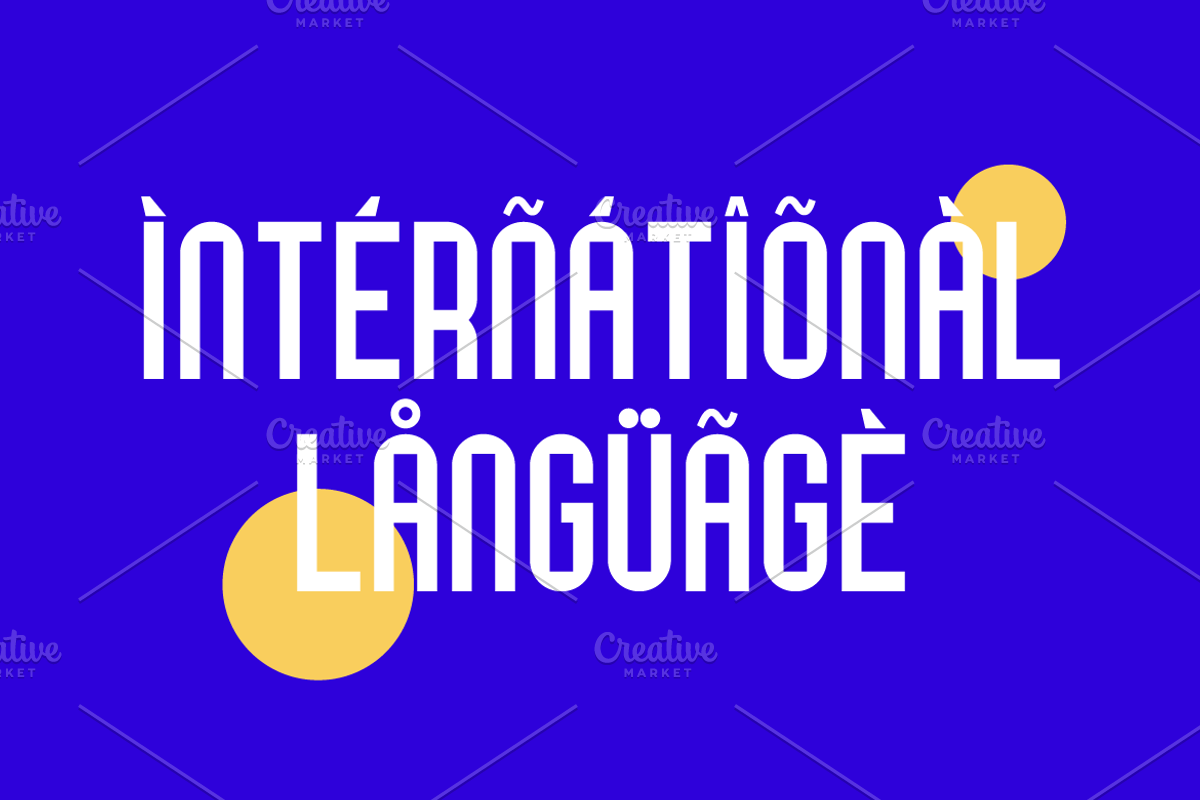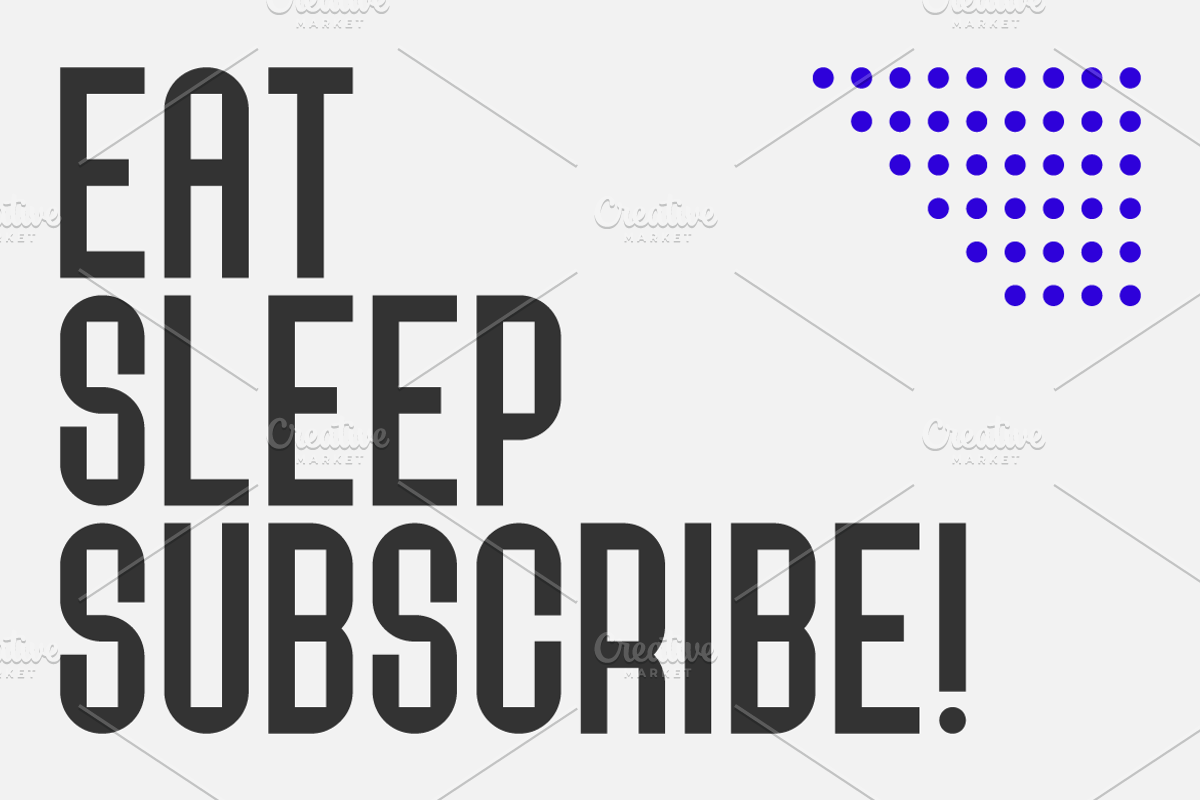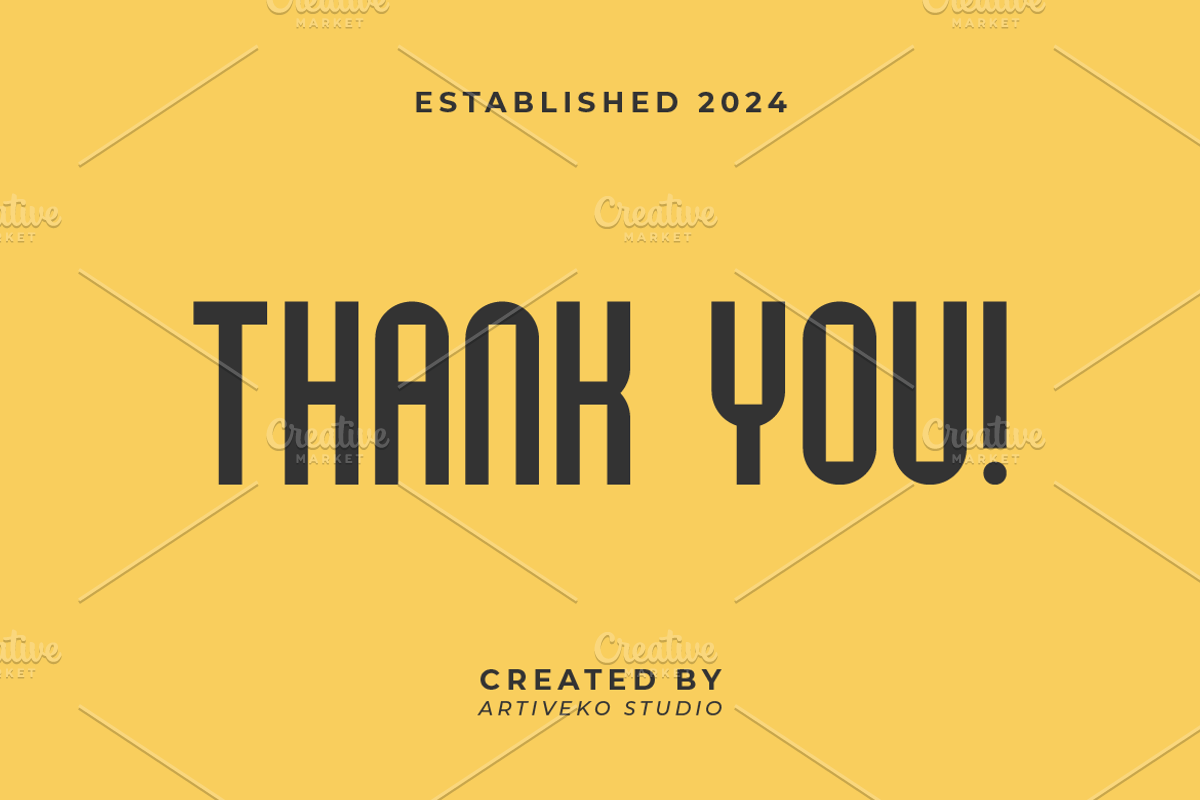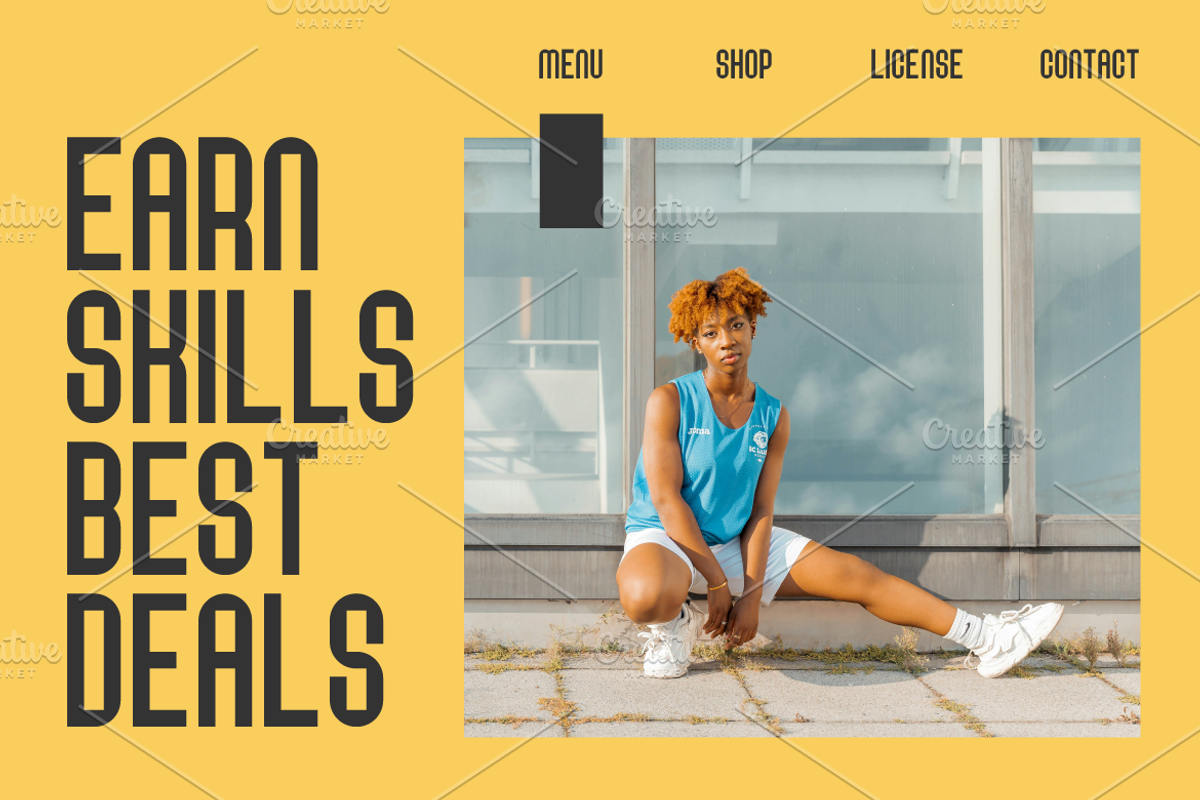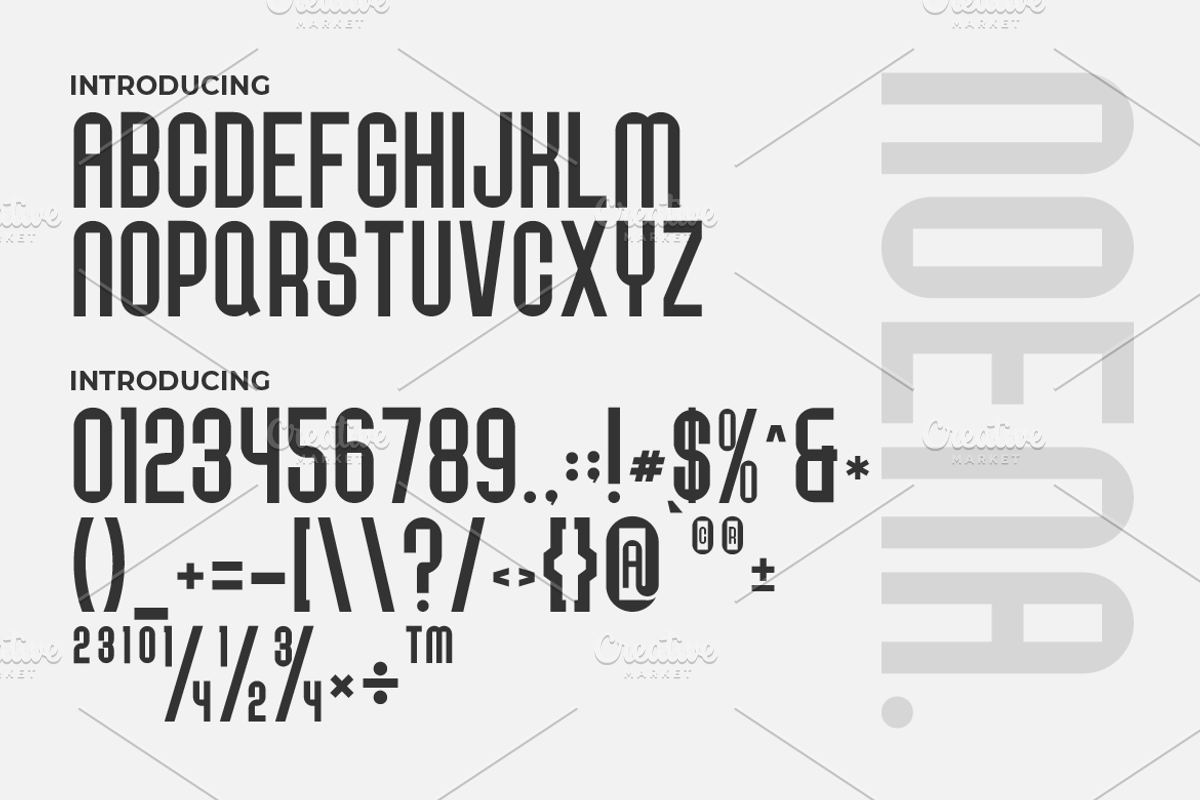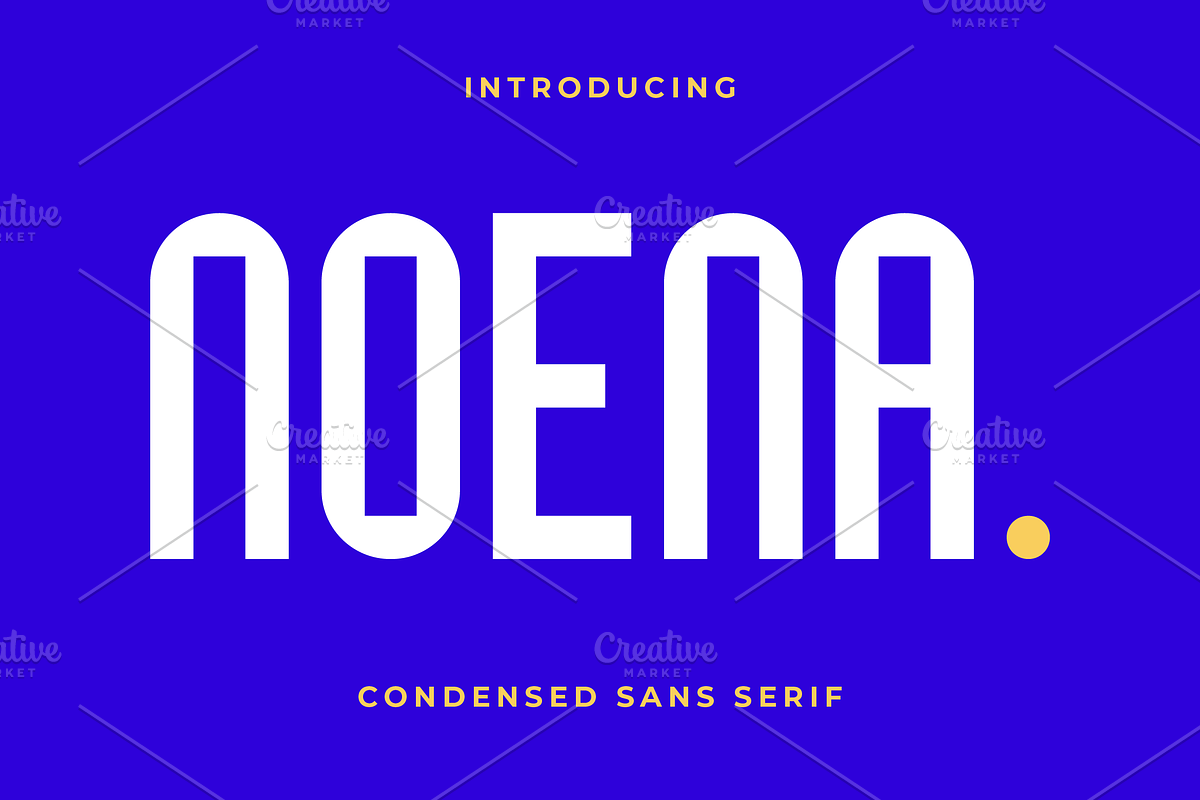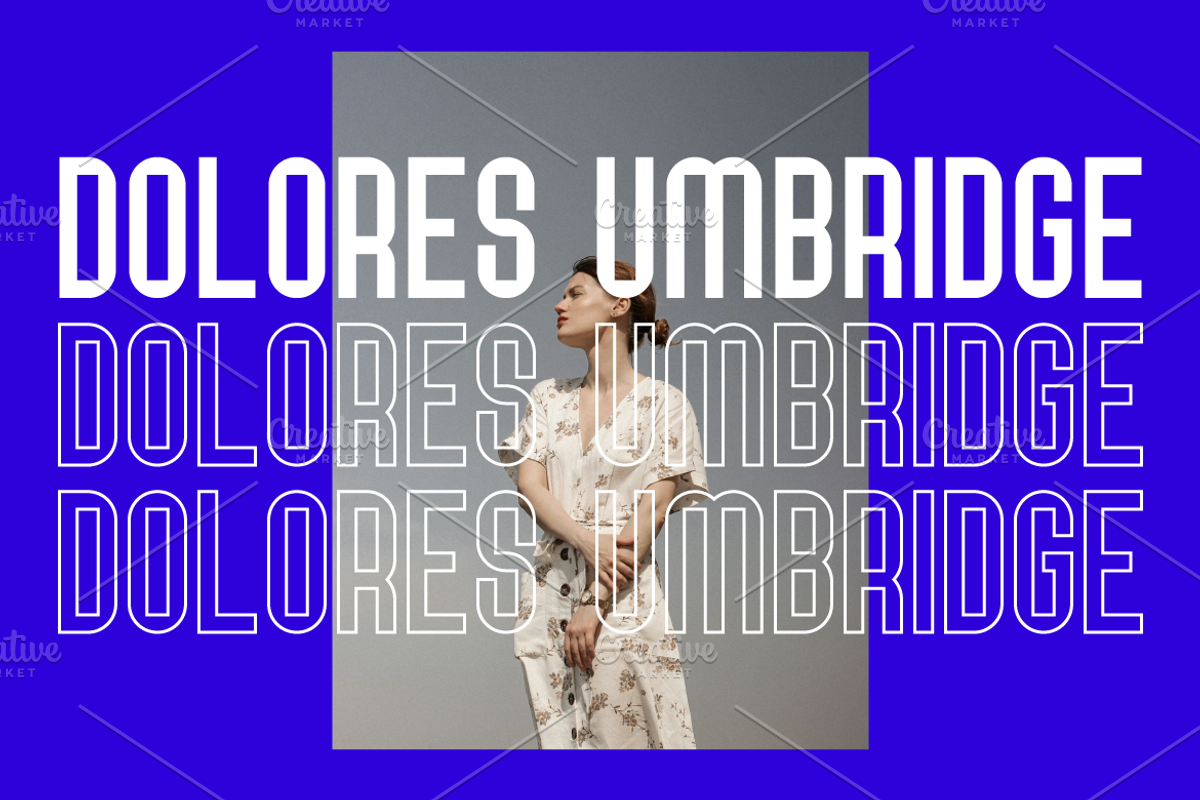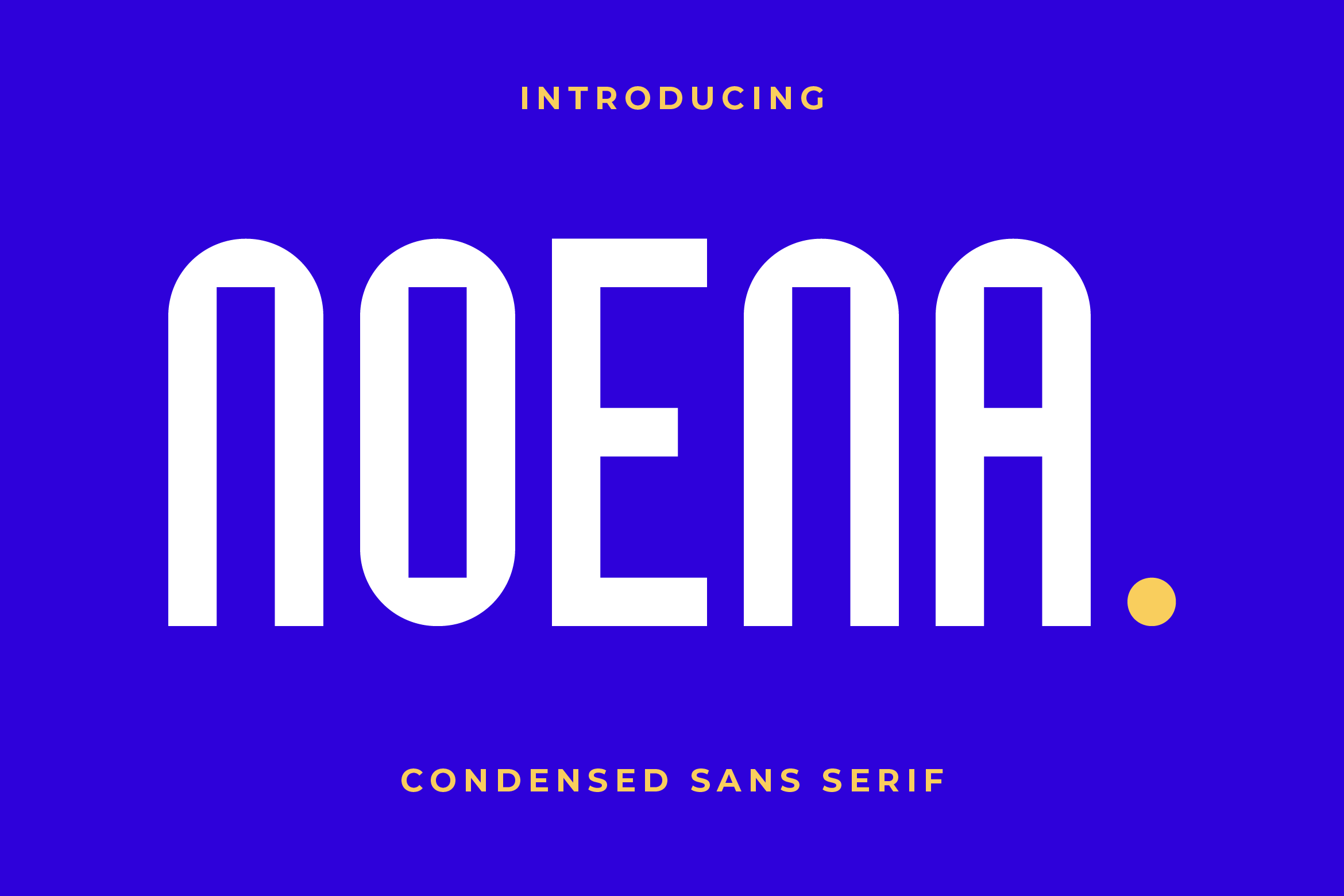
Noena Condensed Sans Font
Noena is a condensed geometric sans serif font by Iwan Alwan, featuring clean, precise shapes with a modern, minimalist look. Its narrow, structured letterforms make it perfect for headlines, logos, and branding that require a sleek, space-efficient design. With multilingual support, ligatures, and alternates, Noena combines functionality with a contemporary, geometric aesthetic, making it ideal for projects that demand clarity and a sharp, refined appearance.